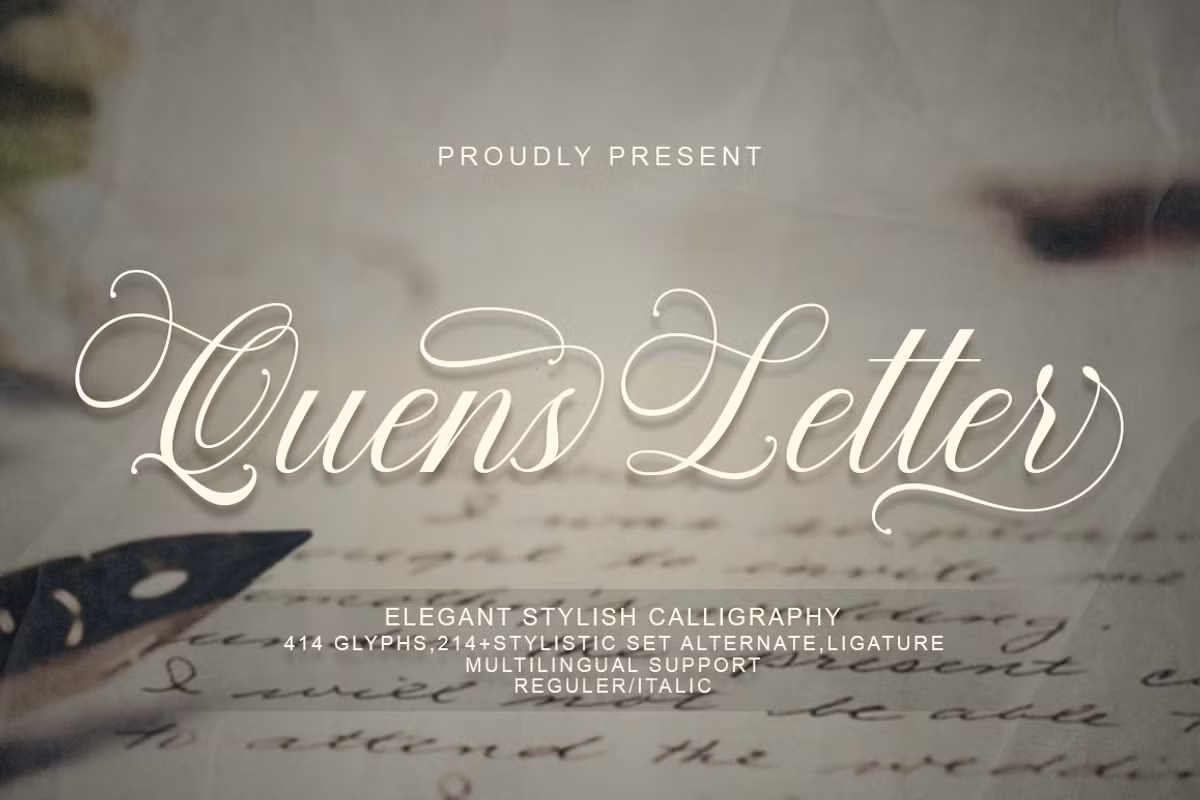
You must purchase this font for commercial use. However, you can download Quens Letter Script Font Free Download for testing purposes. Quens Letter is a stylish and flowing script font designed to bring a personal, elegant touch to your creative work. Perfect for logos, wedding invitations, branding, greeting cards, packaging, and social media content, this font captures the charm of hand-lettered calligraphy with a modern edge.
Featuring smooth curves, graceful ligatures, and a natural writing rhythm, Quens Letter adds sophistication and warmth to both formal and casual designs. Its versatility makes it ideal for everything from romantic projects to chic, minimalist branding. Whether you’re crafting a beautiful quote or building a personal brand, Quens Letter Script Font Free Download lets you explore its full potential before using it commercially.